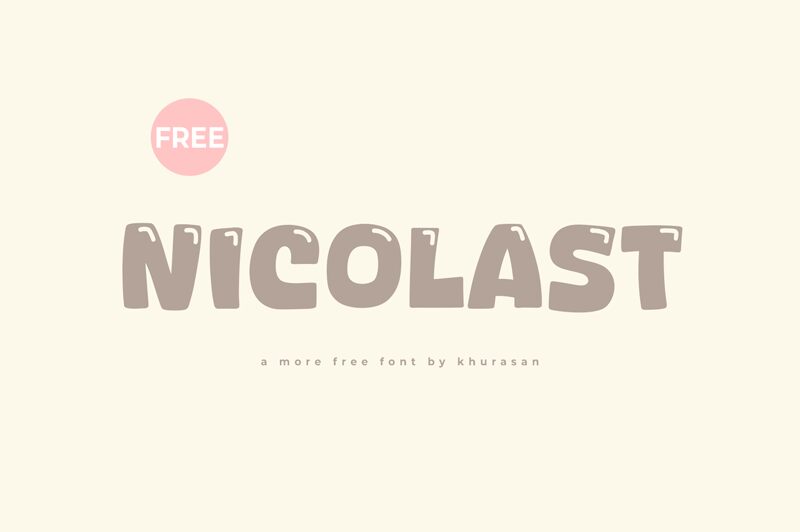
Nicolast
Nicolast is a bold, cartoon-inspired font that demands attention. With its playful, dynamic strokes and exaggerated features, this display typeface exudes a lively, whimsical energy.
Ideal for creating eye-catching headlines, titles, and branding elements, Nicolast's distinctive personality lends itself perfectly to applications in children's media, advertising, and creative industries. Its thick, confident letterforms and unique character shapes make it a standout choice for infusing designs with a touch of quirky, lighthearted charm.
Nicolast's versatility allows it to excel in a variety of contexts, from playful packaging to vibrant social media graphics, ensuring it adds a touch of unmistakable character to any project.